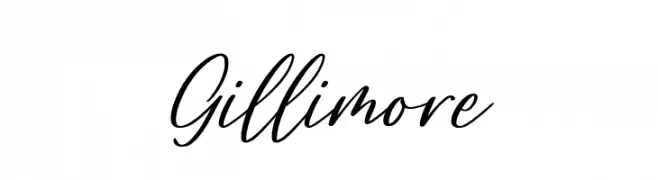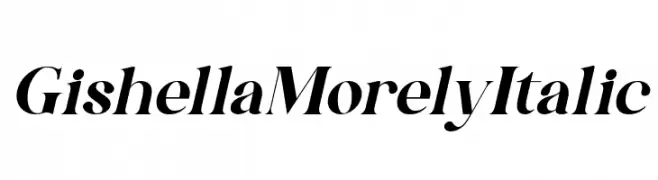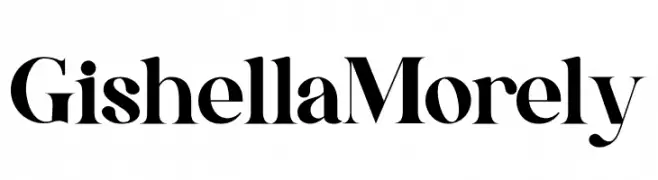
A playful, handwritten font with a whimsical and elegant style.
A bold, playful handwritten font with a whimsical and expressive style.
A bold, dynamic font with modern calligraphic influences and playful lowercase characters.
A dynamic, expressive handwritten font with fluid cursive letterforms.
A dynamic and elegant script font with fluid, connected letterforms.
An elegant italic font with smooth curves and high contrast, perfect for sophisticated designs.
A bold, elegant serif font with high contrast and classic style.
A bold, expressive handwritten font with dynamic strokes and playful curves.
A playful, rounded font with smooth curves and a whimsical style.
A bold, playful font with rounded edges and a whimsical design.